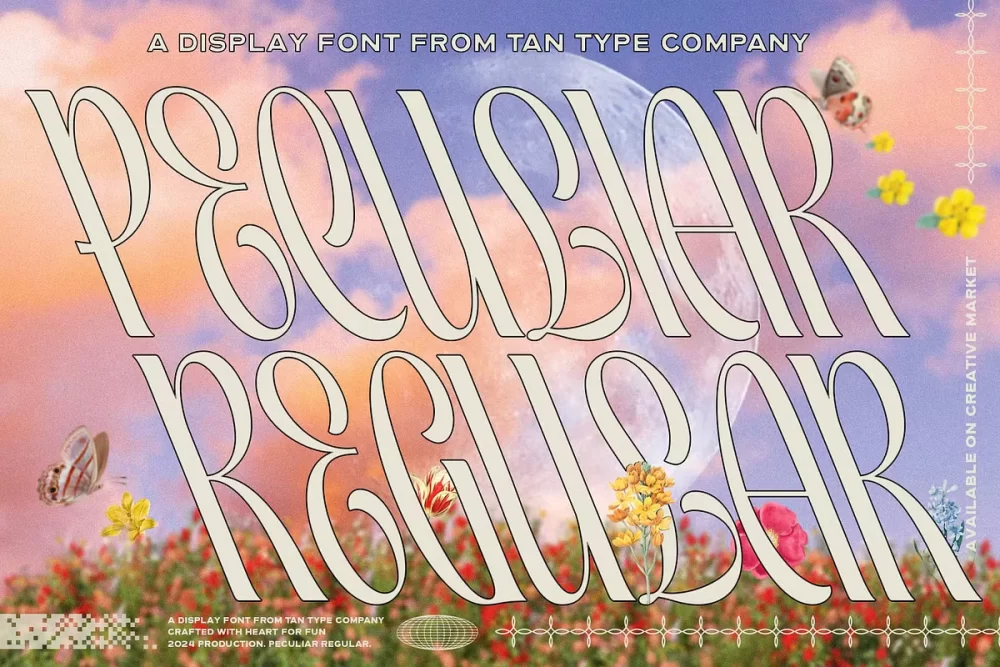
Tan – Peculiar Font
Tan – Peculiar is a fun and quirky display font with a contemporary edge. It adds a touch of wonder to your designs. Works with most design software.